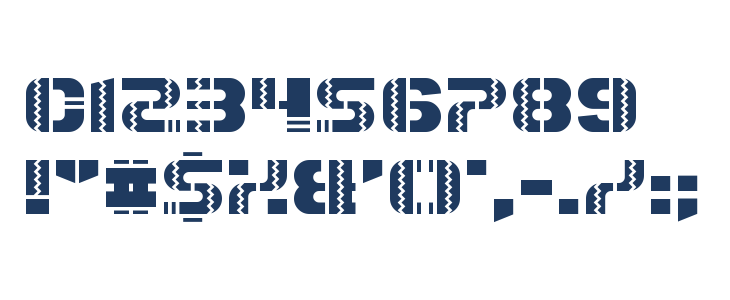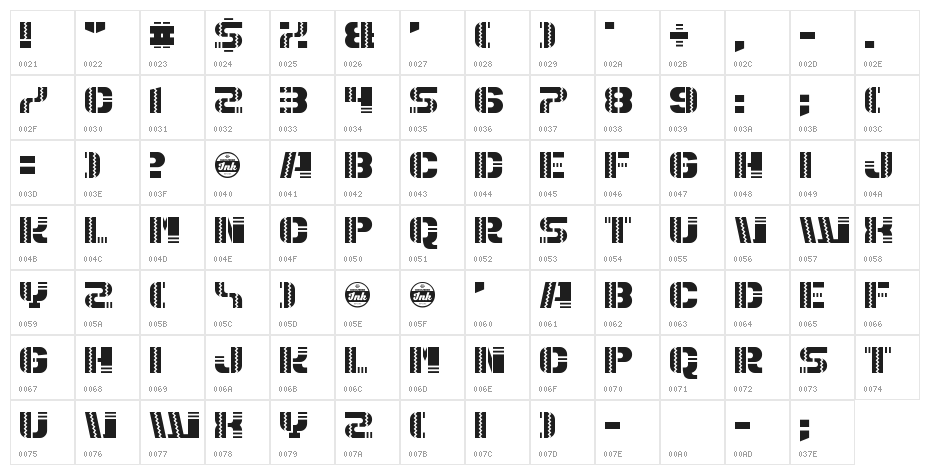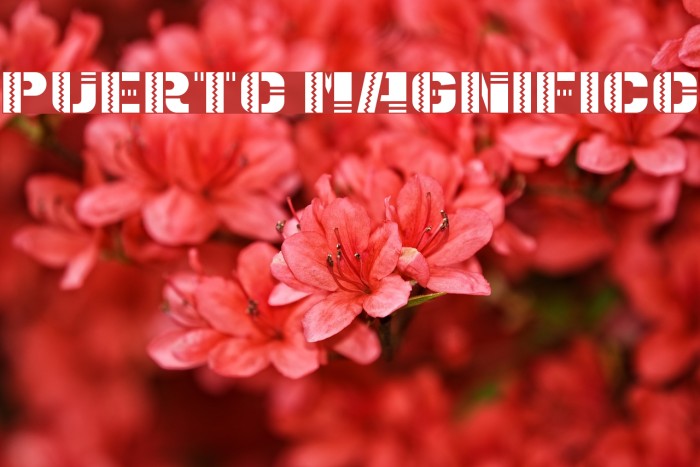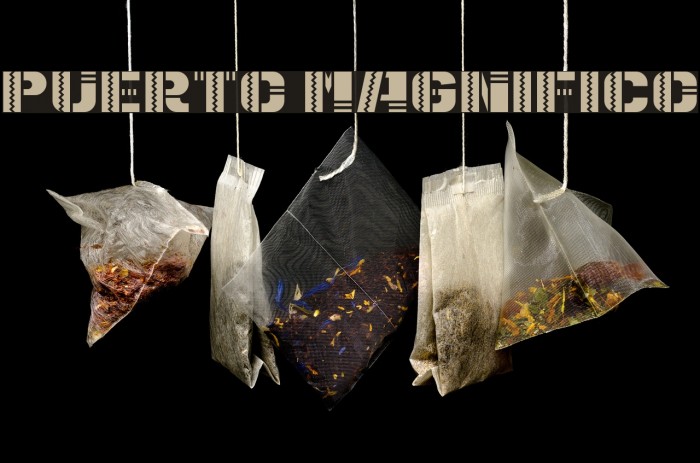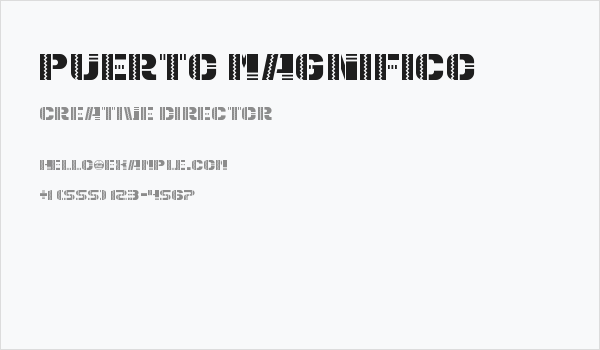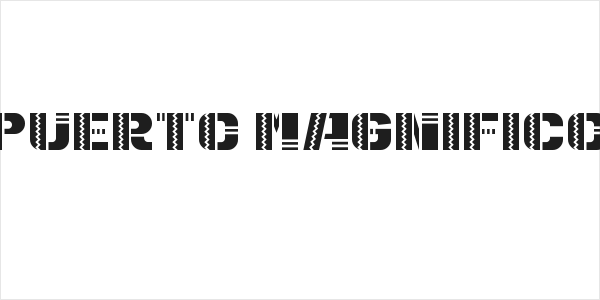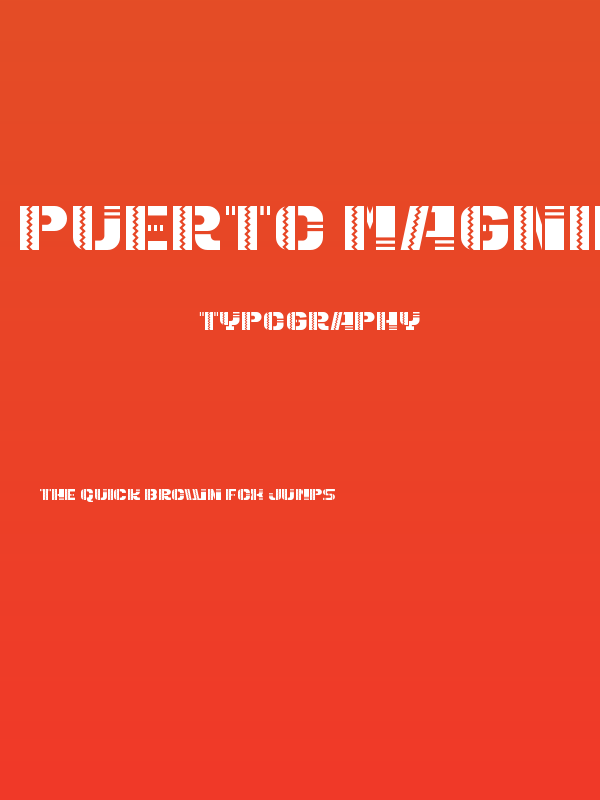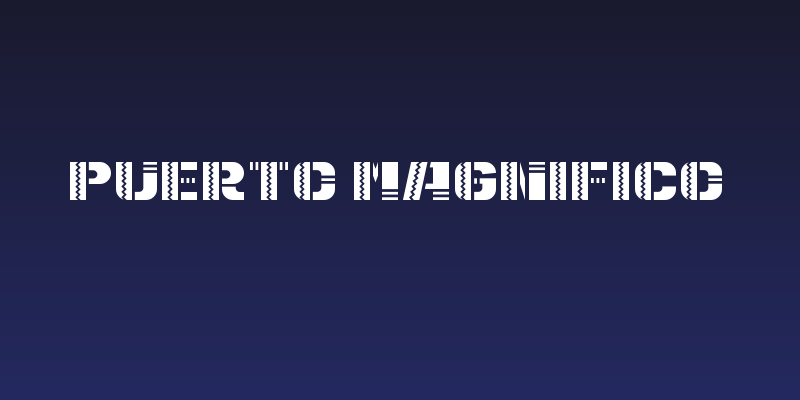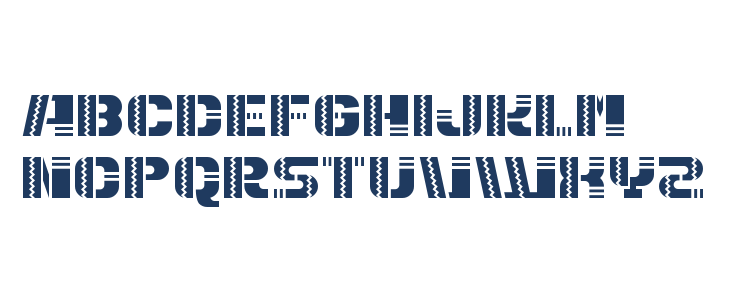
Puerto Magnifico Font
Puerto Magnifico Description
This font features a bold and decorative style with intricate patterns within each character. The letters are designed with a combination of solid and patterned sections, creating a striking visual effect. The uppercase and lowercase letters maintain a consistent design, with the patterns adding a unique flair to each character. The numbers and special characters follow the same decorative theme, ensuring a cohesive look across all elements. This font's distinct style makes it stand out, ideal for projects that require a bold and artistic touch.
| Proposed Projects | Ideal for posters, branding, album covers, and any project needing a bold, artistic touch. |